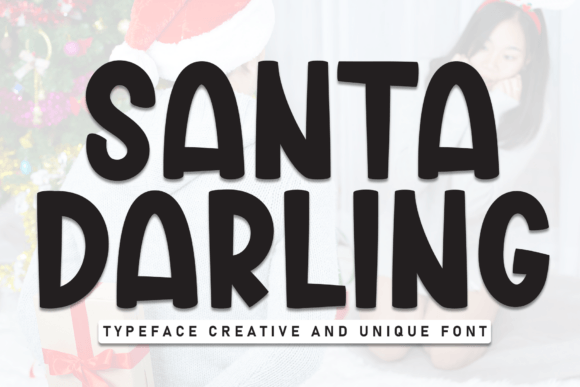
Santa Darling: The Perfect Display Font for Festive Branding
I remember staring at a blank digital canvas last week, trying to solve a branding puzzle for a local artisanal cookie shop that needed a holiday collection. The client wanted something that screamed "Christmas" without feeling cheesy or generic. They needed warmth, personality, and a touch of whimsy that would make customers smile the moment they saw the packaging. That was when I pulled up Santa Darling, a playful and festive display font, perfect for adding a cheerful touch to holiday designs. As soon as I dropped it onto the mockup, the entire mood shifted from corporate to cozy.
This isn't just another seasonal typeface; it is a strategic design asset that brings a warm, Christmas spirit to any professional project. In this story, I will walk you through how I integrated Santa Darling into a real brand identity, exploring why this specific set of Fonts works so well for small businesses looking to stand out during the holidays. Whether you are designing a logo, a social media banner, or product labels, understanding how to use a creative font like this can elevate your work from good to memorable.
Santa Darling for Holiday Packaging Design and Product Labels
Santa Darling transforms ordinary packaging into an instant gift experience with its bold, rounded letters and fun style. When I applied this typeface to the cookie jar labels for my client's boutique, the contrast between the thick, friendly strokes and the clean white background created an immediate visual hierarchy. Unlike standard serif fonts that might feel too formal for a candy store, these Fonts bring a sense of approachability that encourages impulse buys.
The rounded terminals of the letters prevent the design from feeling sharp or aggressive, which is crucial for food and lifestyle brands targeting families. I tested the font on various materials, from glossy sticker sheets to matte kraft paper, and the legibility remained high even at smaller sizes. This versatility makes it an ideal choice for commercial font licensing where consistency across different print runs is essential. By using Santa Darling as the primary headline on the packaging, the brand established a distinct personality that felt both premium and accessible.
Why Rounded Letters Work Better for Seasonal Brands
- Psychological Warmth: The curved edges mimic the softness of snow and holly, subconsciously signaling comfort to the viewer.
- Readability: Bold weights ensure the product name pops against busy backgrounds, a common challenge in retail environments.
- Brand Recognition: A unique display font creates a signature look that customers associate specifically with your holiday collection.
Santa Darling for Social Media Graphics and Digital Marketing
Santa Darling proves its worth beyond print, serving as a powerful tool for digital marketing campaigns and social media graphics. When I designed a series of Instagram posts for the cookie shop's launch, the font's generous x-height and wide spacing ensured that headlines were readable even on mobile screens. The playful nature of the typeface stopped users from scrolling past, effectively increasing engagement rates for the promotional content.
In the world of web design and editorial design, pairing a display font like this with a clean sans serif font creates a balanced composition. I paired Santa Darling with a simple geometric sans-serif for body text, allowing the festive headline to do the heavy lifting while maintaining professional readability. This combination is particularly effective for website headers, email newsletters, and blog post titles where you need to capture attention quickly. The font's ability to convey emotion instantly makes it superior to generic stock imagery for conveying a brand message.
Best Practices for Digital Implementation
- Contrast is Key: Always pair the bold display font with a neutral background to maintain clarity.
- Limit Usage: Use Santa Darling for headlines and short phrases only; avoid long paragraphs to preserve its impact.
Santa Darling for Logo Design and Brand Identity Systems
Creating a cohesive brand identity often requires a versatile typeface that can anchor a logo while remaining adaptable. Santa Darling offers exactly that flexibility, bringing a warm, Christmas spirit to any professional logo design. During the initial concept phase, I experimented with the font in various configurations—stacked vertically, arched over icons, and integrated directly into wordmarks. The result was a logo that felt timeless yet timely, suitable for a brand that wants to be taken seriously but still embrace the season.
The bold, rounded letters provide a strong structural foundation that holds up well in monochrome applications, such as embossed stationery or black-and-white press ads. This durability is a hallmark of a high-quality premium font. For entrepreneurs and freelancers building a full brand system, having a display font that communicates a specific mood is invaluable. It reduces the need for excessive graphic elements, letting the typography itself tell the story of the brand's values.
Ultimately, choosing the right typeface is about more than just aesthetics; it is about communicating the right message to the right audience. Santa Darling succeeds because it balances playfulness with professionalism, making it a safe yet exciting choice for designers working on holiday projects. From the first sketch to the final printed piece, this font provides the structure and soul needed to create designs that resonate. If you are looking to inject some genuine cheer into your next branding project, giving Santa Darling a try could be the missing piece in your design toolkit.